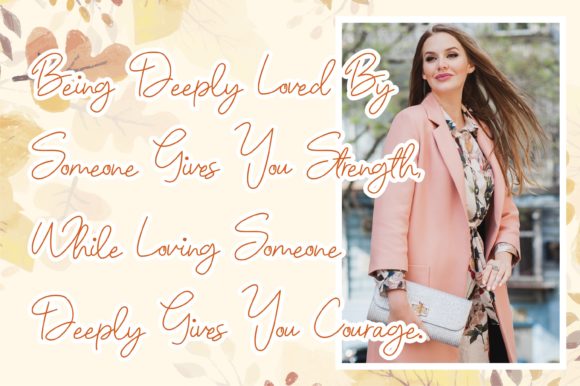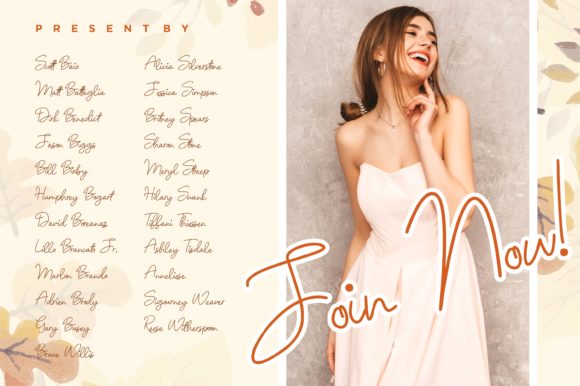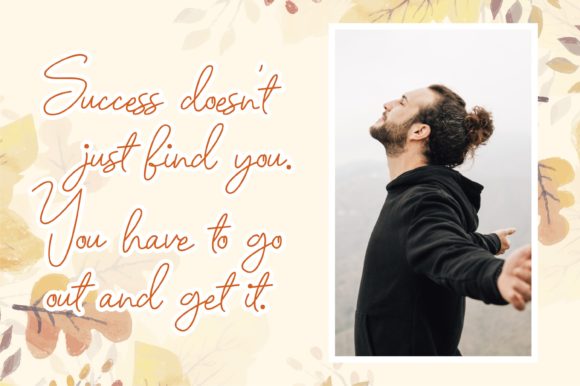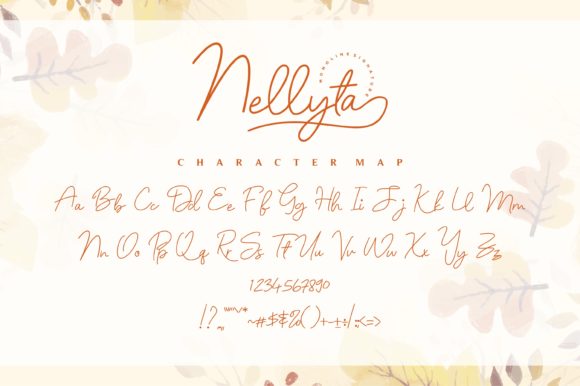
About Nellyta Font
Nellyta is a romantic and relaxed calligraphy font. It is the best choice for creating eye catching logos, branding and quotes. Every letter has a unique and beautiful touch, which will make your design come alive!